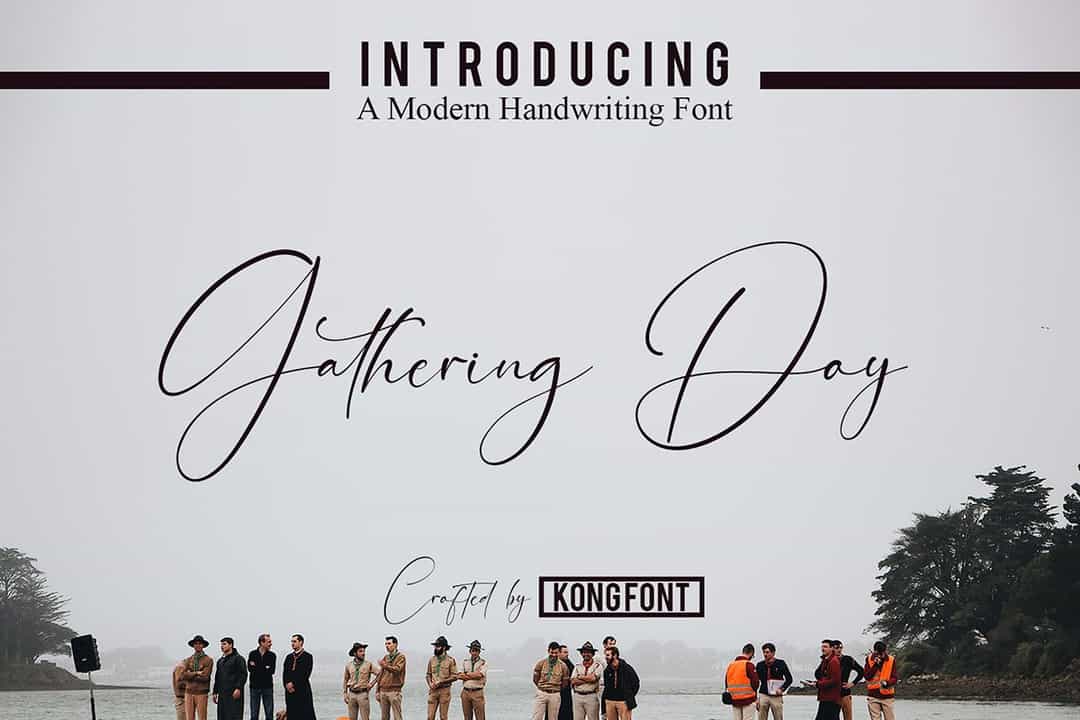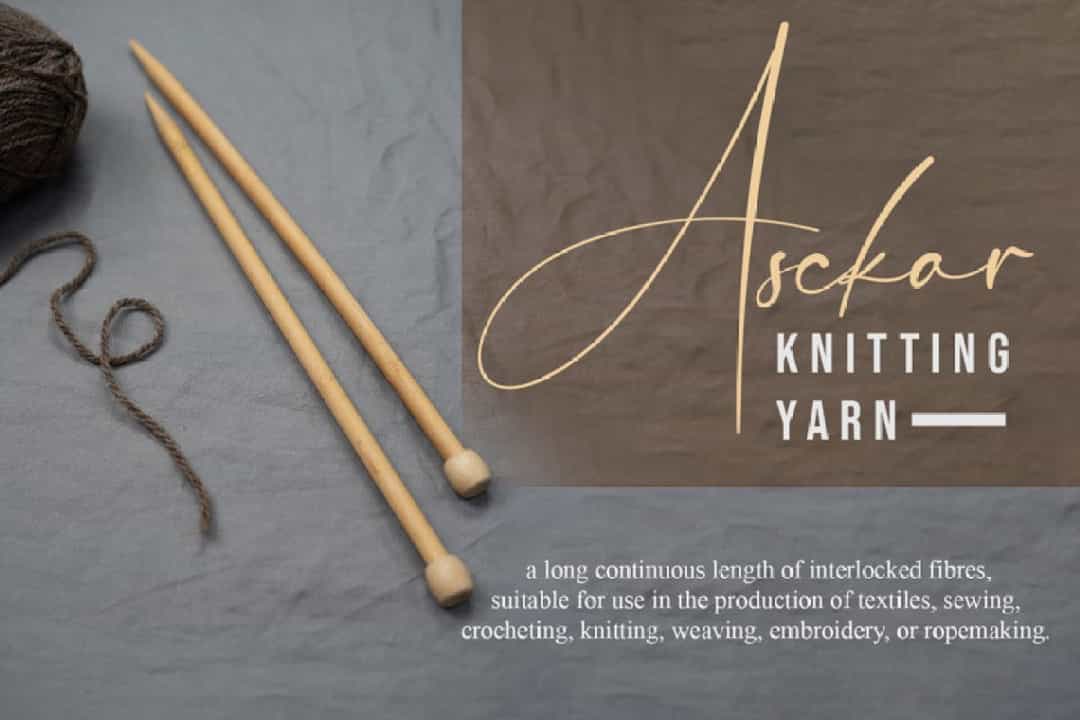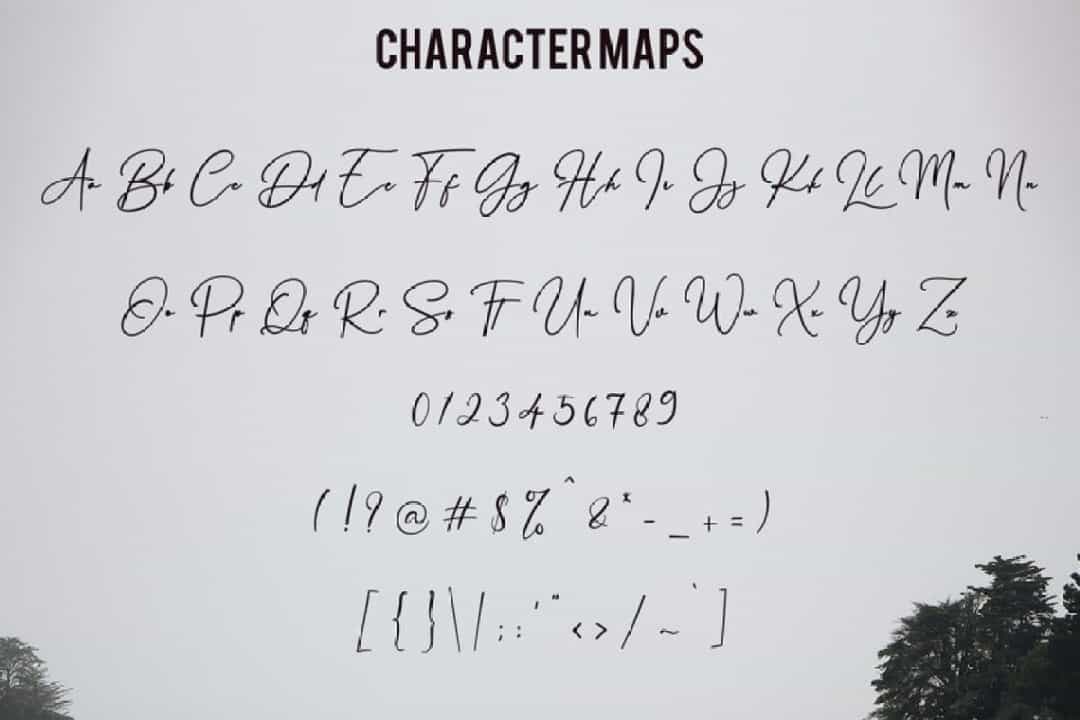
The Gathering Day Font is a beautiful script font that has a very modern, yet charming look to it. Perfect for many designs! This handcrafted font will give that natural look to your design projects such as invitations, logos, book cover designs, crafts and other areas where a natural look is desirable.